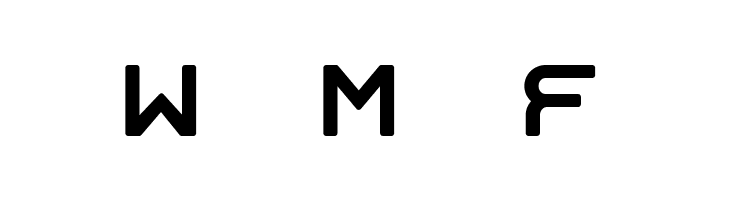
A modern, monospaced font with rounded edges and consistent stroke weight.
A bold, angular font with a rugged, vintage western style.
A classic serif typeface with elegant, traditional letterforms and moderate contrast.
A bold, elegant font with high contrast and a vintage-modern style.
A sleek, modern, and italicized font with thin strokes and high legibility.
A cursive script font with elegant, flowing characters.
A bold, modern font with geometric shapes and clean lines.
A bold, high-contrast font with geometric flair and modern elegance.
A bold, Gothic-style font with intricate, angular letterforms.
Designers love Moby Monospace, Eastwood, Free Serif, Bundesliga and CampanileFLF for their clean forms and broad use cases — from brand identities to landing pages and posters.